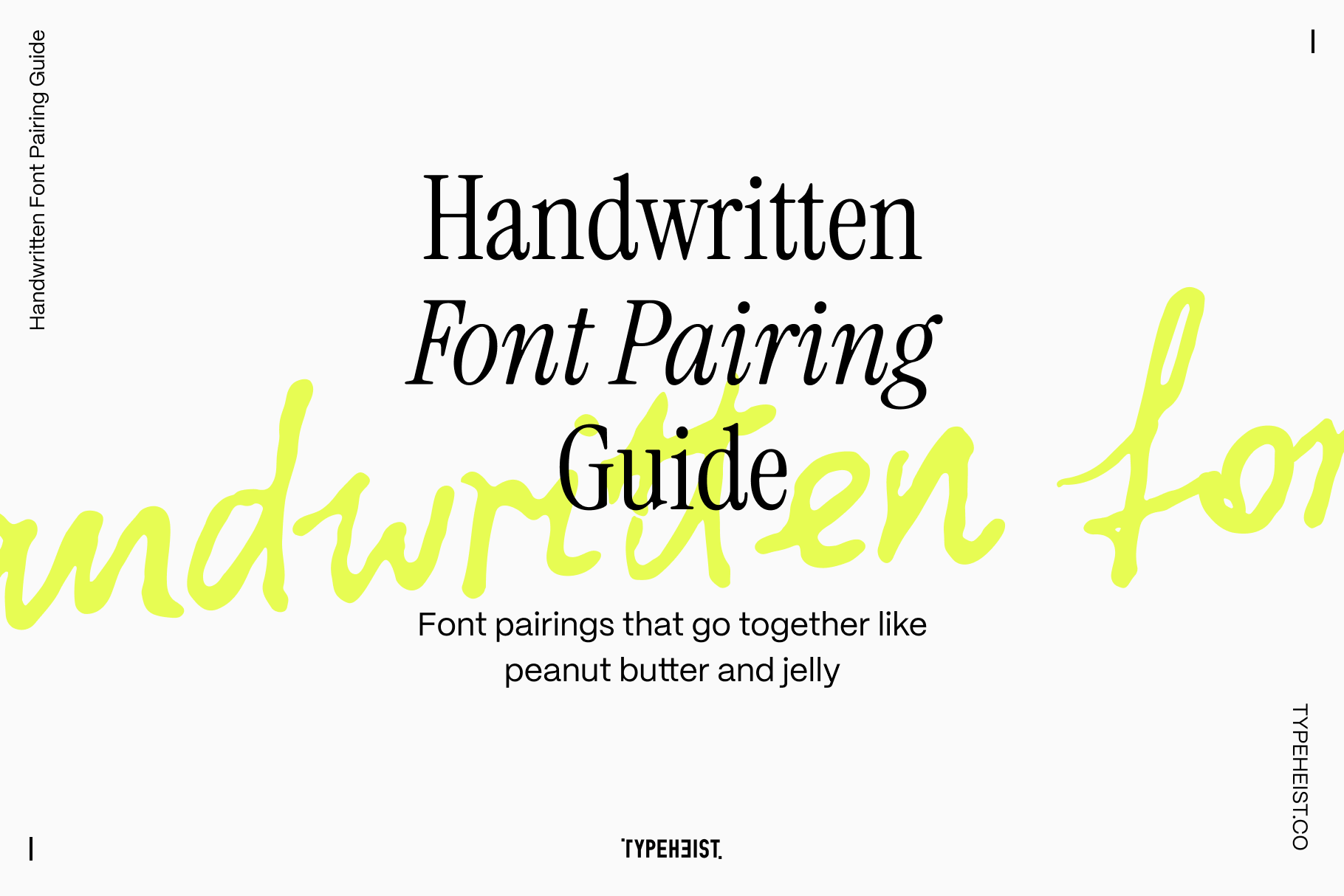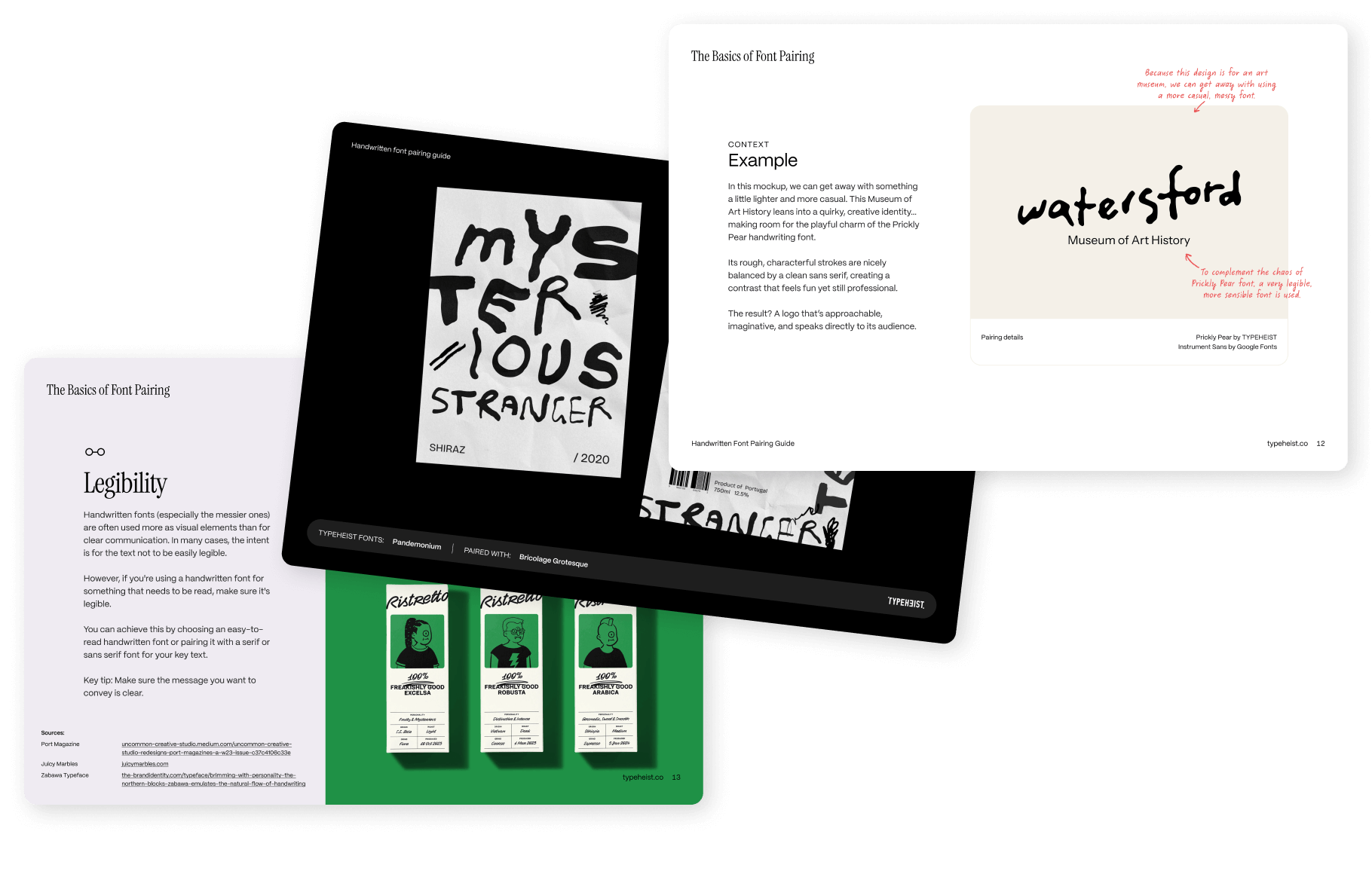
Handwritten Font Pairing Guide
Pair handwritten fonts like a pro.
This 52-page guide is packed with practical tips, real-life examples and clever pairing tricks... made just for handwritten fonts.
You’ll learn the key principles (like contrast, hierarchy and balance), explore bold and unexpected pairings and get handy extras like a font glossary, featured handwritten font list and a juicy discount code.
Made for designers, content creators and brand builders who want their handwritten type to stand out.
Mix, match, and make magic.
Font pairings that go together likepeanut butter and jelly.
The Handwritten Font Pairing Guide — a jam-packed little resource full of tips, tricks, and tasty type combos made just for handwritten fonts.
Let’s be real: handwritten fonts can be wild. A little scruffy. A bit dramatic. But that’s exactly why we love them. Pairing them, though? That’s where things can get messy (the bad kind of messy). This guide gives you the tools to make them shine — from solid pairing principles to real-life examples and unique inspo.
Whether you're a designer, brand builder, or font nerd just here for the vibes — you’re in the right place.
- Font pairing basics - Tips you can follow to keep your pairings smooth, balanced, and visually on point
- Visual examples that actually show what works (and why)
- Pages of unique font pairing inspiration: chaotic, rustic, contemporary + more
- Glossary of common font styles
Behind the scenes
There are a lot of font pairing guides out there. But none that truly celebrate the messy, quirky, personality-filled world of handwritten fonts. Hint: this one does.
I made this guide as a bit of a love letter to handwriting — to prove that even the weirdest, scratchiest, most offbeat fonts can work beautifully when paired with the right match.